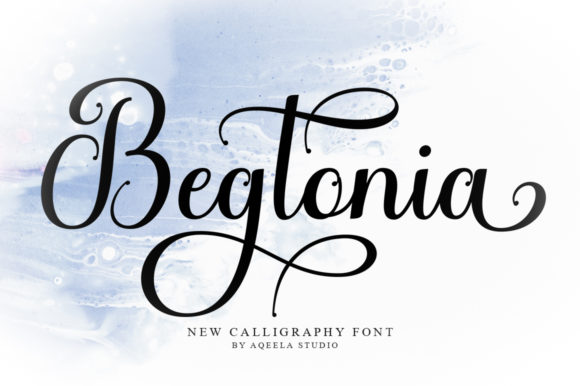
Begtonia: The Light Handwritten Font for Modern Marketing Campaigns
It was Wednesday, and the launch plan was solid. The product was ready, the messaging was tight, but my thumbnails looked… bland. The campaign needed a spark, a visual cue that felt personal and premium. That’s when I stumbled upon Begtonia, a beautiful light handwritten font. I opened the file, typed the launch headline, and instantly felt the difference. This wasn’t just another typeface; it was a communication tool.
How Begtonia’s Unique Feel Strengthens Message Clarity
Begtonia is a Script Handwritten font with a distinctive personality. Its light, flowing strokes carry a warmth that generic bold fonts lack. When you're trying to convey authenticity or a touch of luxury—say, for a limited-edition product teaser or an intimate webinar invitation—the font itself sets the mood. That unique feel translates directly into message clarity. In a feed saturated with heavy sans-serifs, Begtonia’s delicate character draws the eye and suggests a more considered, human-centric message. It makes your headline not just seen, but felt, which is the first step to being remembered.
Using Begtonia for Elegant Social Media Campaign Graphics
In my campaign workflow, social visuals are the frontline. Begtonia became my go-to for Instagram post titles and Pinterest pin headlines. The stunning impact it promises is most evident on these platforms. For a series of quote graphics supporting a brand values campaign, Begtonia gave each piece a cohesive, elegant voice. It added that luxury spark without shouting “expensive.” On a Reels cover or a YouTube thumbnail, used as the primary title text, the font creates a focal point that feels editorial and crafted, encouraging a pause in the fast-scrolling feed.
Begtonia in Digital Ads and Website Banners for Brand Recognition
Extending the campaign to digital ads and website headers required consistency. The Script Handwritten style of Begtonia proved incredibly versatile here. For a display ad promoting a seasonal sale, using Begtonia for the “Sale” callout and pairing it with a clean sans-serif for details created an immediate visual hierarchy. On the site’s landing page banner, the same Begtonia treatment made the campaign feel unified. This consistent application across touchpoints builds subtle but powerful brand recognition; the audience begins to associate that elegant handwriting style with your messaging, whether they see it on an email banner or a promoted post.
Preparing a Cohesive Content Set with the Begtonia Font
Building a full promotional content set—from email graphics to blog header images—is about finding a typographic anchor. Begtonia served as that anchor. Its light weight ensures it doesn’t overpower supporting imagery, but its distinctive style provides a clear stylistic thread. When preparing a week’s worth of campaign posts, I established a rule: Begtonia for all primary headline text. This discipline meant that, whether the graphic was for Facebook, a newsletter, or a LinkedIn carousel, the core message had the same beautiful, handwritten quality. This cohesion turns individual pieces into a recognizable campaign.
Begtonia for Short Headlines and Decorative Callouts
Understanding a font’s optimal use is key. Begtonia works best for short headlines, logo-style text, and decorative titles. Its delicate nature means long paragraphs would compromise readability. Instead, leverage its stunning impact for your key campaign phrases: the product name in a launch graphic, the date on a webinar banner, the percentage in a sale announcement. This focused use maximizes its luxury spark. It’s a display font, perfect for making a strong first impression where brevity and beauty are paramount.
Readability Advice for Begtonia on Mobile Screens and Thumbnails
A practical note from the trenches: always check your mobile preview. A light handwritten font like Begtonia needs careful consideration against busy backgrounds. On thumbnails and mobile screens, ensure sufficient contrast—white Begtonia text on a dark, muted image overlay works beautifully. Avoid placing it over highly detailed areas. In fast-scrolling feeds, clarity is won through contrast and size. Test your designs at actual thumbnail dimensions to confirm the message is clear and the elegant feel of the Begtonia font is preserved.
Practical Font Pairing with Begtonia’s Handwritten Style
No font lives alone in a campaign. The strategic pairing is where Begtonia truly shines. Its light Script Handwritten character pairs effortlessly with a robust, clean sans-serif for body text and details. This combination balances personality with clarity. For more editorial projects, a classic serif can also complement Begtonia well. This pairing creates a modern typography system: Begtonia for emotional impact and headlines, a complementary font for informational support. This system becomes a reusable asset across your campaign templates.
Checking Begtonia’s PUA Encoding and Commercial Font Licensing
Before finalizing any campaign asset, a technical check is essential. The product details note Begtonia is PUA encoded. This means you have access to any special alternates or glyphs directly through your design software’s glyph panel, allowing for extra customization without extra work. As a marketing specialist using fonts in ads and client campaigns, always verify the licensing. Ensure the Begtonia font license covers commercial use, digital ads, merchandise, and client templates if applicable. This due diligence protects your projects and allows you to deploy this beautiful typeface confidently across all your design projects.
My launch campaign went live, and the visuals felt unified and distinctly premium. The choice of Begtonia wasn’t an aesthetic whim; it was a strategic decision for message clarity and campaign cohesion. For any marketer or creator building a campaign that needs to feel personal, elegant, and impactful—from a product launch to an Instagram series—this light handwritten font offers not just a style, but a solution. It adds that luxury spark precisely where your message needs it most.